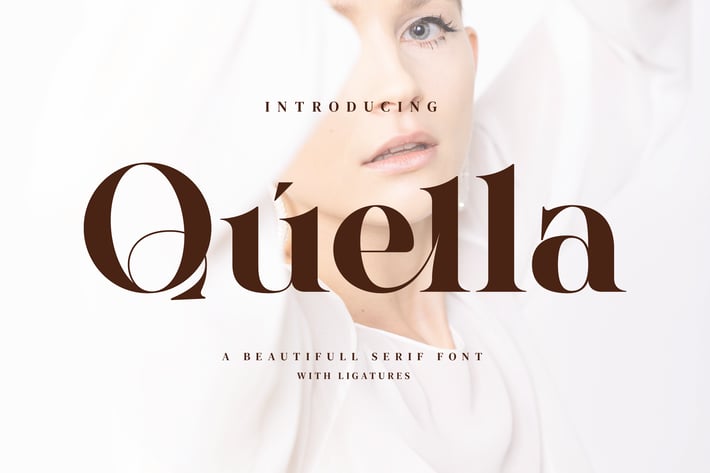
Quella - Beautifull Ligature Font
Quella Stylish Ligature Typeface, inspired by the famous minimalist logo perfect for the purposes of designing templates, brochures, videos, advertising branding, logos and more.